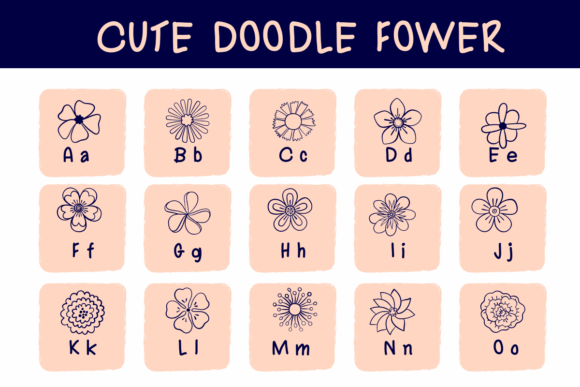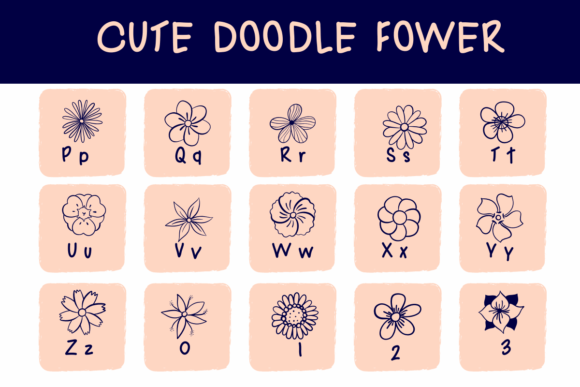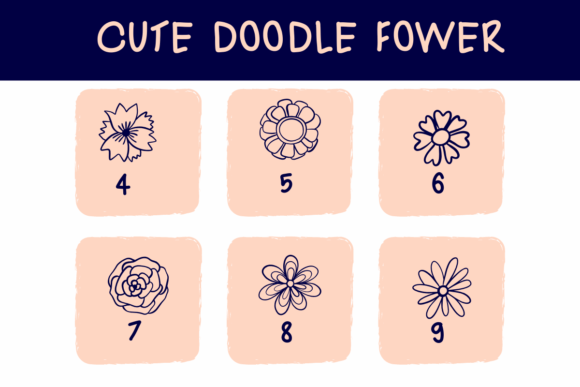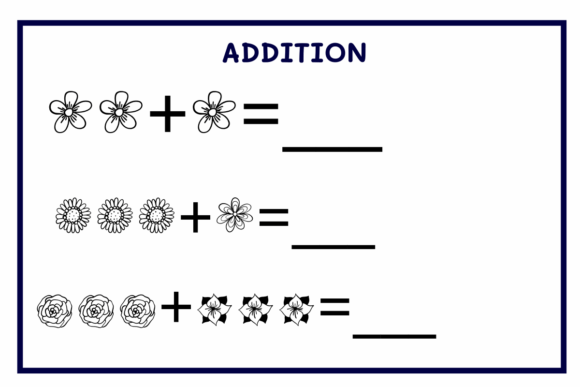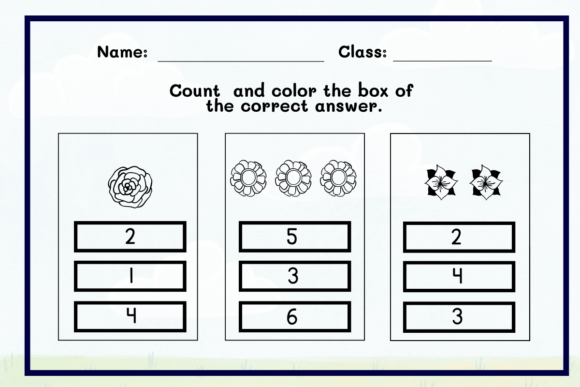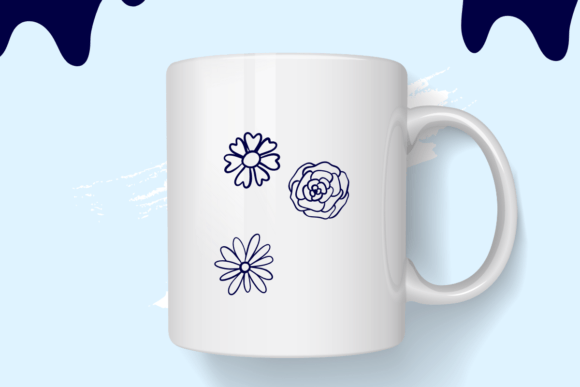
The Delight of Design: Introducing Cute Flower Doodle Font
Remember that moment when you’re brainstorming ideas for a wedding invitation or a DIY project, and suddenly, a spark of creativity hits you? You envision a beautiful, whimsical design that captures the essence of your vision. That’s where the magic of fonts comes in – and today, we’re excited to introduce you to the delightful Cute Flower Doodle Font, a dingbats font that’s sure to bring a smile to your face.
This charming font is more than just a pretty face; it’s a valuable tool for designers looking to add a personal touch to their creative projects. With its sketch-style design and floral theme, Cute Flower Doodle Font is perfect for crafting unique wedding invitations, decorations, logos, and more. Whether you’re a seasoned pro or a design newbie, this font is sure to inspire your next creative project.
Cute Flower Doodle Font Key Features
- Unique Characteristics: The Cute Flower Doodle Font features a playful, whimsical design with intricate floral patterns and cute doodles, making it perfect for children’s books, greeting cards, and other creative projects.
Cute Flower Doodle Font Review
Overall, I think Cute Flower Doodle Font is a lovely addition to any design project. ✨ The playful, whimsical feel of the font is perfect for creating a fun and youthful atmosphere in your designs. It’s great for use in social media graphics, children’s products, or any other project where you want to convey a sense of playfulness.
Here are some things that work well about this font:
- ✨ The unique and quirky design makes it stand out from more traditional fonts.
- ✨ It’s highly legible, even at smaller font sizes.
- ✨ The font is highly customizable, allowing you to adjust the size, color, and spacing to suit your design needs.
However, there are a few limitations to be aware of:
- ⚠️ The font may be too playful for more formal or professional designs.
- ⚠️ Some users may find the font too “doodle-like” and lacking in sophistication.
- ⚠️ The font may not be suitable for use in large blocks of text, as it can become overwhelming.
Overall, I think Cute Flower Doodle Font is a great choice for designers who want to add a touch of whimsy to their projects. Just be sure to use it thoughtfully and in the right context.